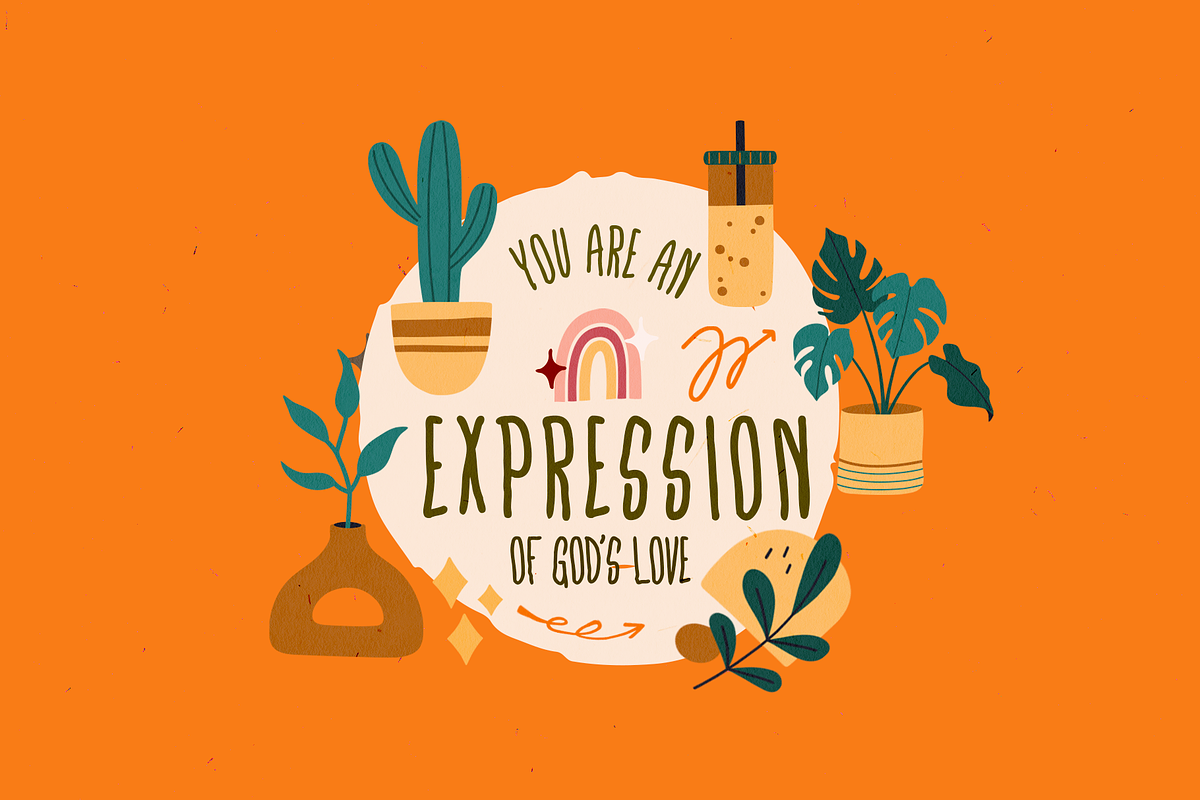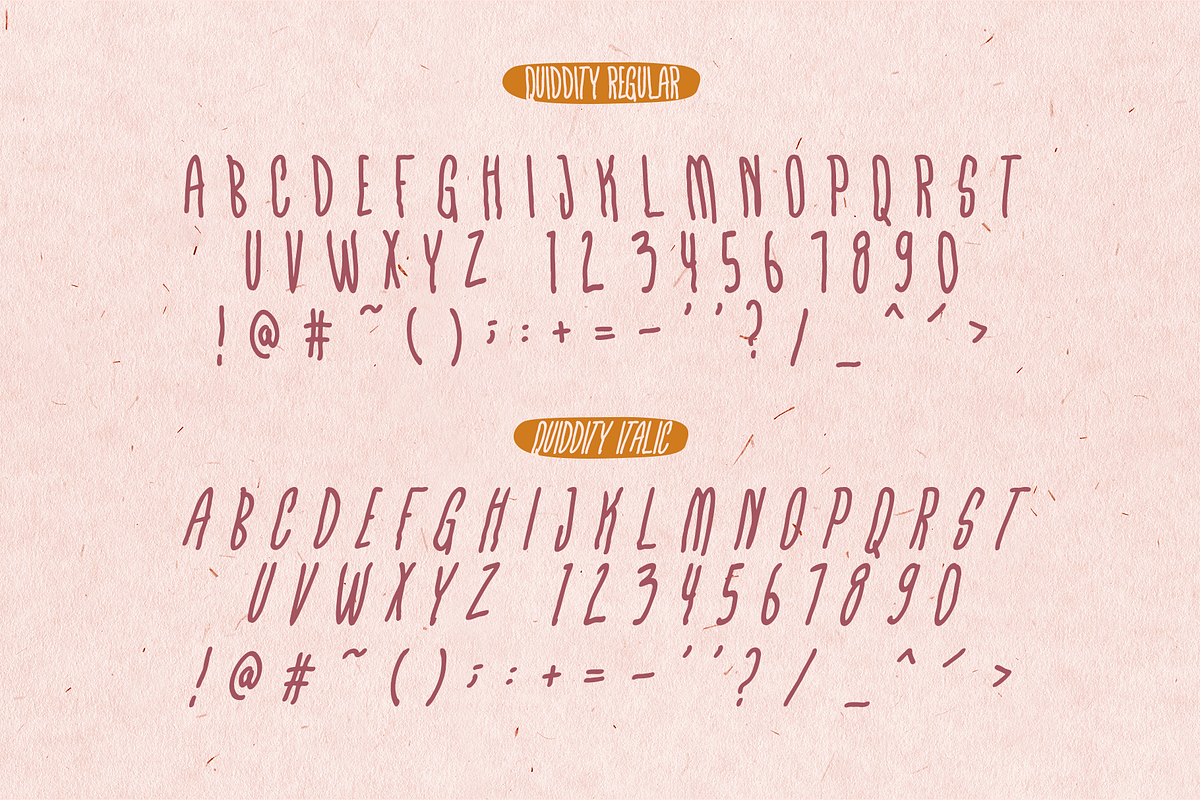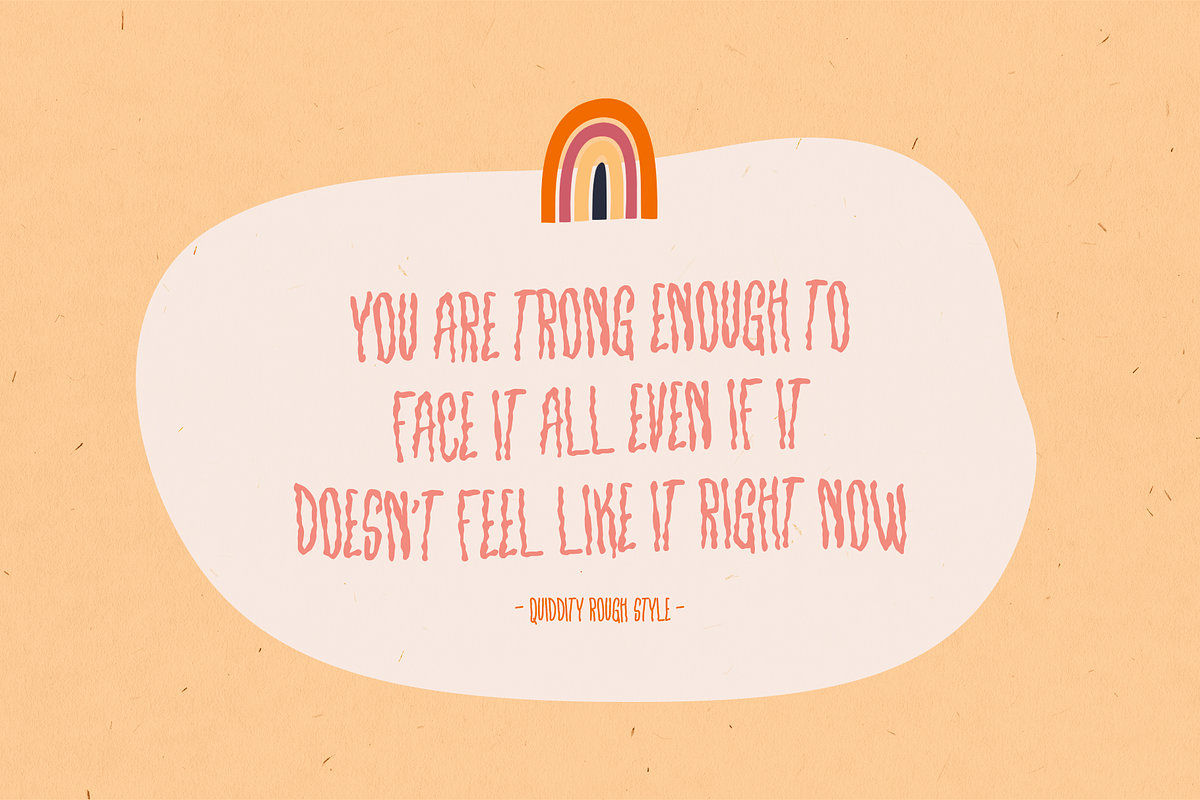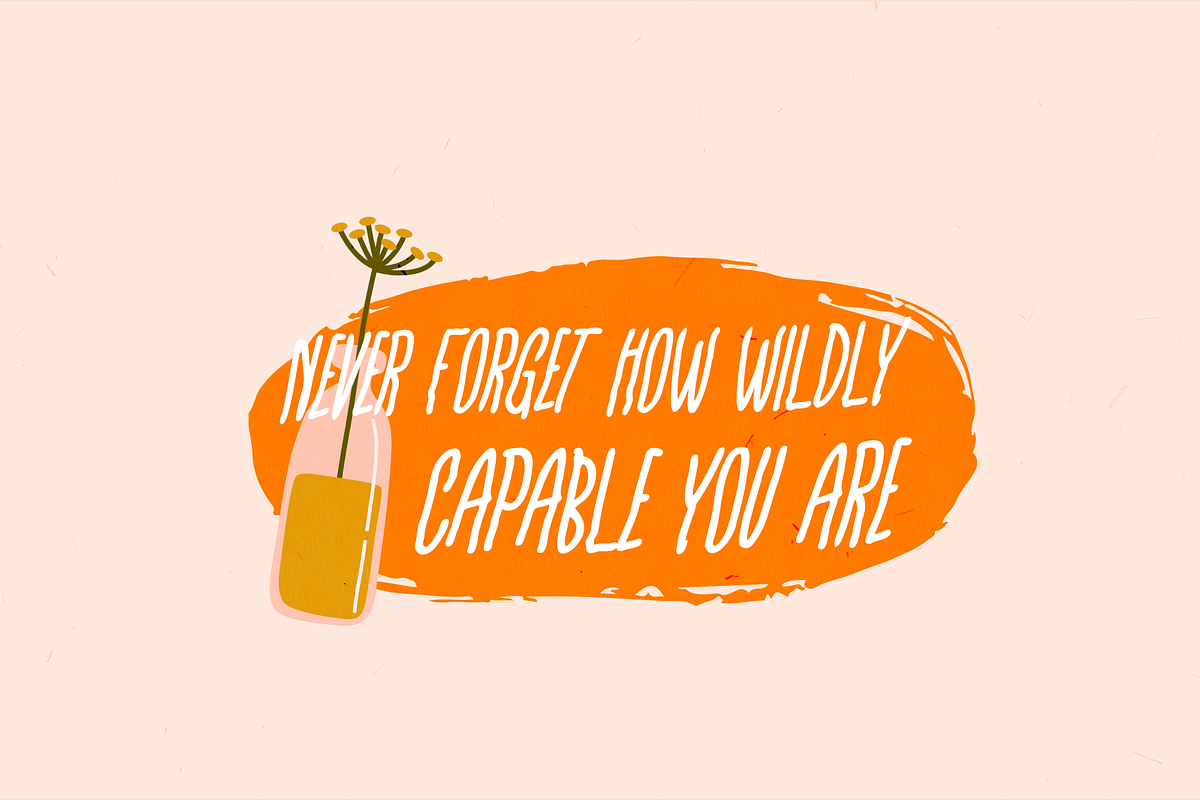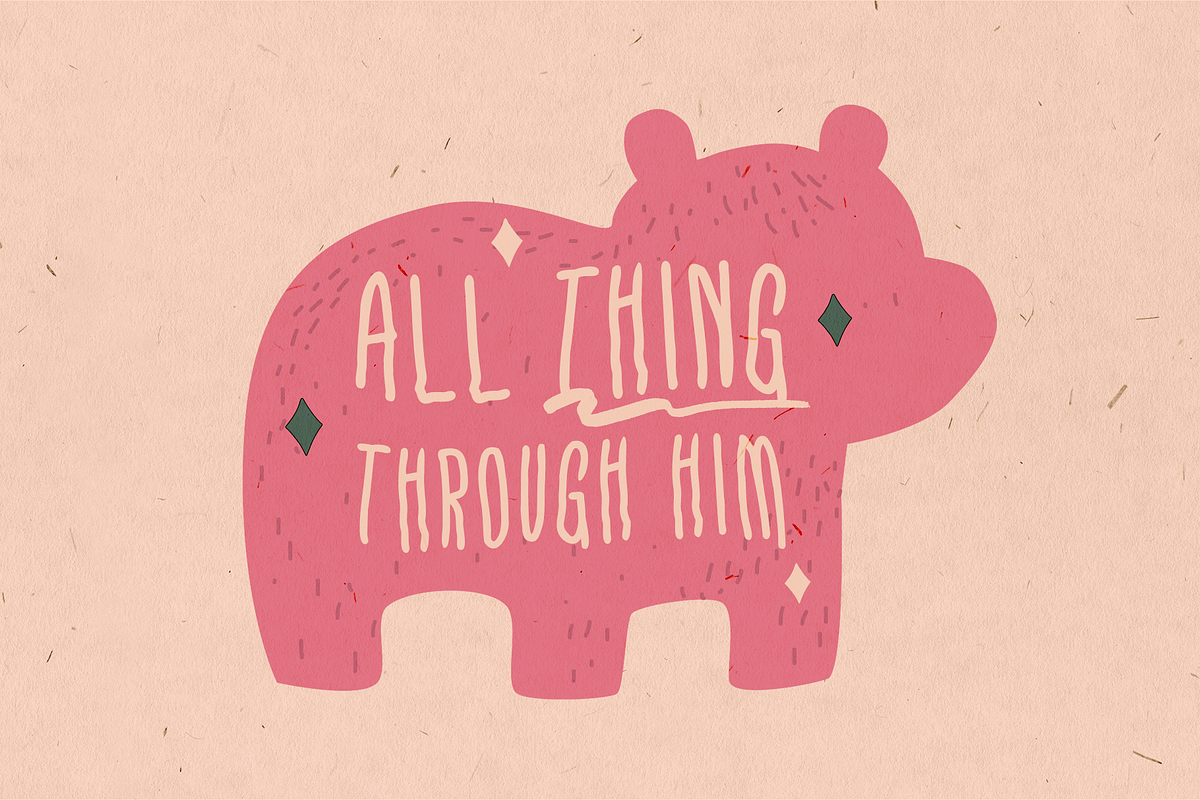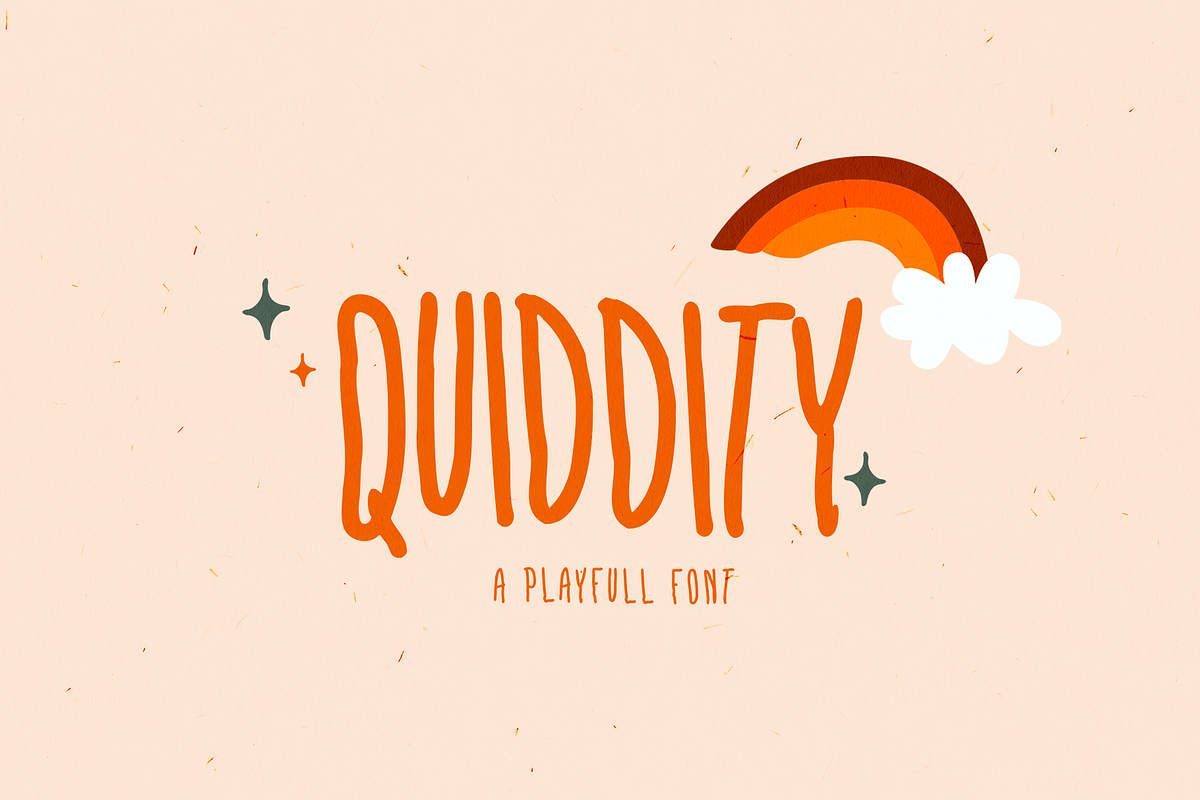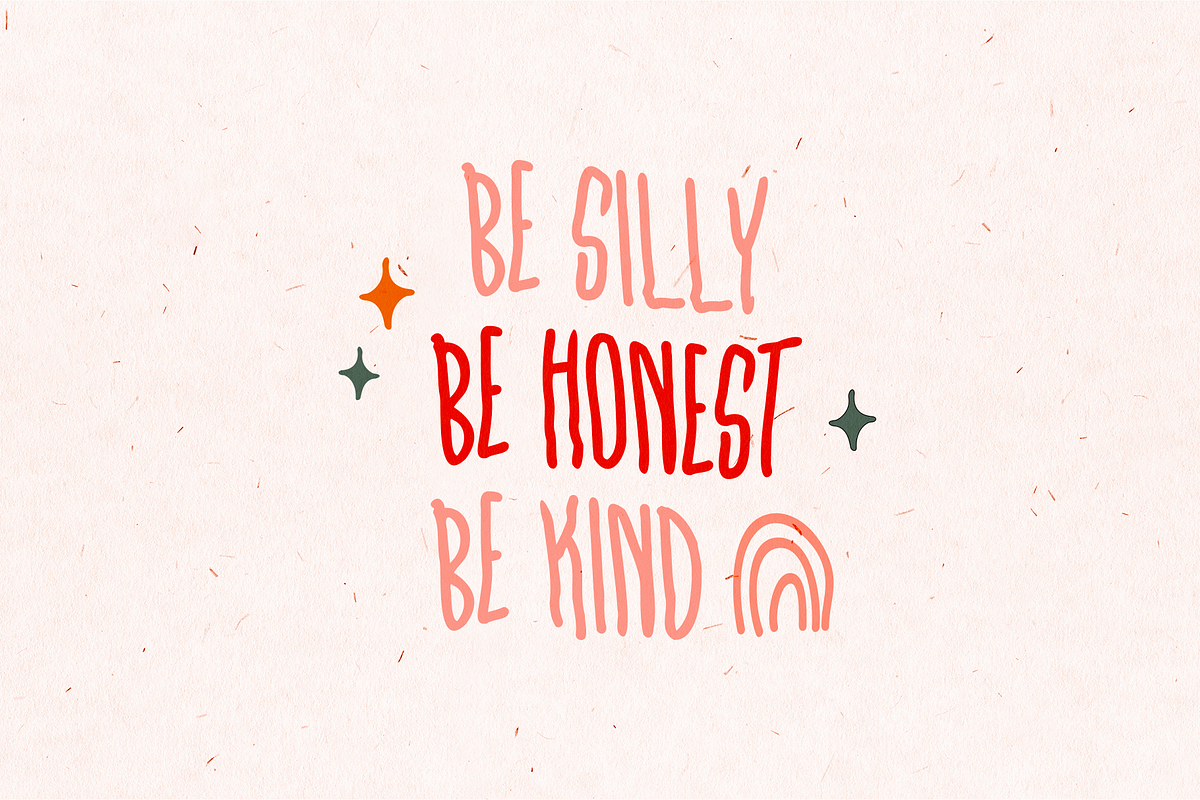
GRVS Quiddity
Quiddity Playful font, is our new item that suitable for your kids logo, or community logo.
Great for Logo, Sticker, storybook, kids book, Invitation Card, Brochure, etc.